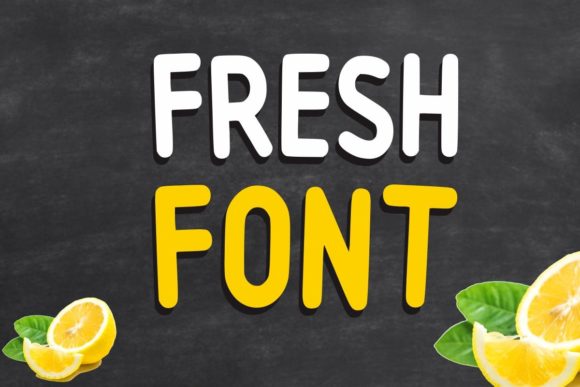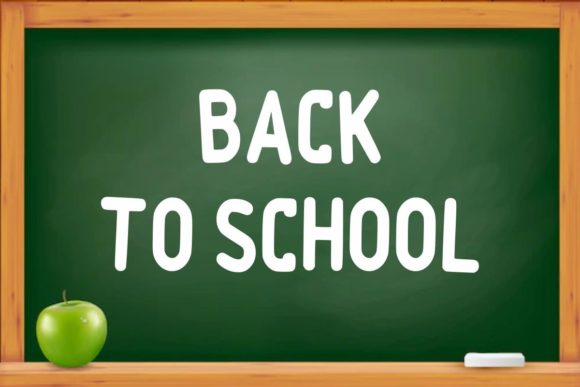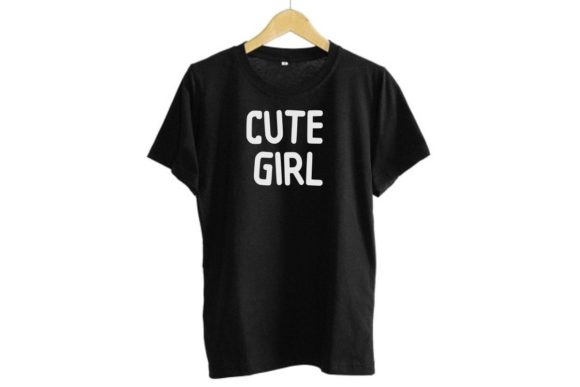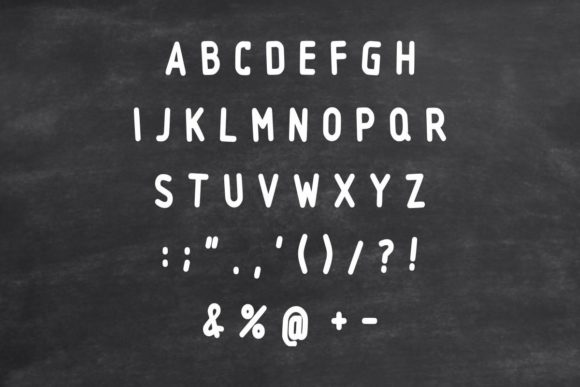
About Lemon Juice Font
Introducing Lemon Juice, a cute, simple, and friendly handwritten font designed to bring a relaxed touch to your creations. With its informal style and casual vibe, Lemon Juice becomes a go-to choice for various projects that require a laid-back and approachable aesthetic. This font is suitable for a range of applications, including product packaging, invitations, quotes, t-shirts, labels, posters, logos, and more.
Lemon Juice’s charm lies in its cute and friendly handwritten design, making it versatile for a variety of creative endeavors. Whether you’re working on branding materials, crafting invitations, or designing apparel, this font adds a touch of informality and warmth to your designs.
For product packaging, Lemon Juice becomes a defining element, infusing a relaxed and friendly vibe into labels and packaging designs. The font’s simple and cute style contributes to a visually appealing presentation, making your products stand out with approachable charm.
In invitations and quotes, Lemon Juice adds a casual and friendly touch to the messaging. The font’s handwritten charm enhances the overall atmosphere, creating invitations and quotes that feel personal and welcoming.
T-shirts and posters benefit from Lemon Juice’s simple and cute design, creating designs that resonate with a laid-back and easygoing audience. The font’s informal style adds a touch of character to your apparel and promotional materials.
Lemon Juice is more than just a font; it’s a creative tool that brings a relaxed and friendly vibe to your projects. Embrace the simplicity and charm of Lemon Juice as you confidently incorporate it into your various creative endeavors, adding a cute and friendly touch to your designs.